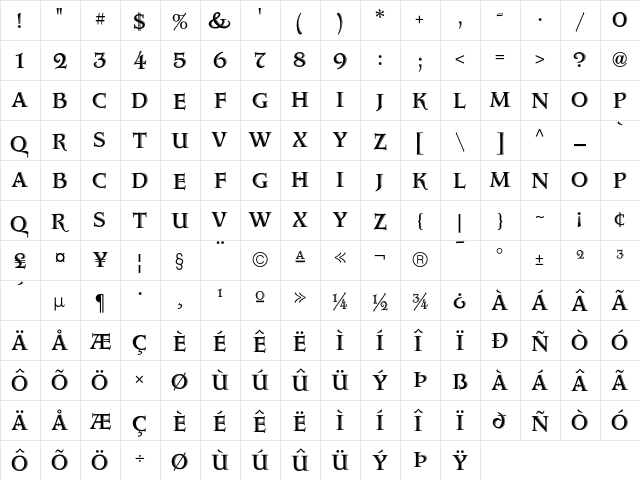
AquitaineInitialsICG Regular Font Preview
AquitaineInitialsICG Regular
Design Context for AquitaineInitialsICG Typeface
AquitaineInitialsICG offers clean, dependable letterforms without strong stylistic allegiance, making it a practical choice for designers who need flexibility.
Pro Tip: Use AquitaineInitialsICG in both headline and body roles to test its range before committing to a single application.